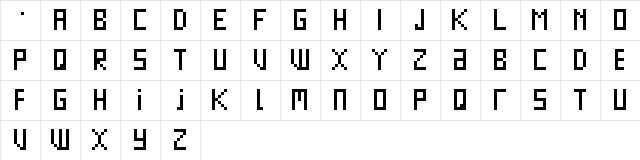
WLM Boring Old Teletext UC Regular
| Designer | Wolf Lambert |
Design Context for WLM Boring Old Teletext UC Typeface
WLM Boring Old Teletext UC takes a measured approach to typography — its balanced proportions and neutral character make it a reliable workhorse for both digital and print work.